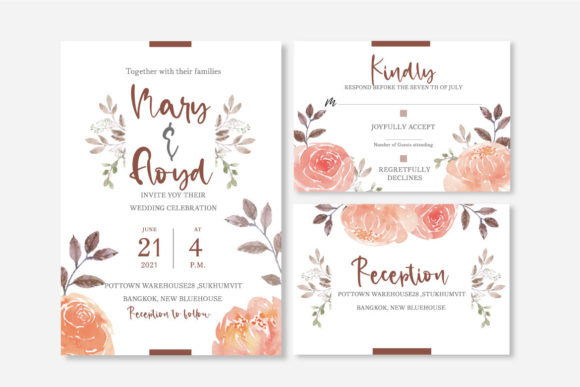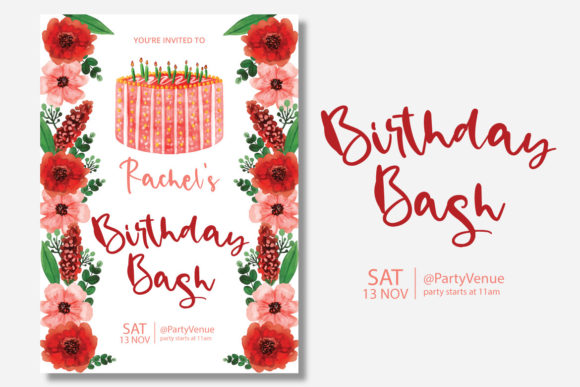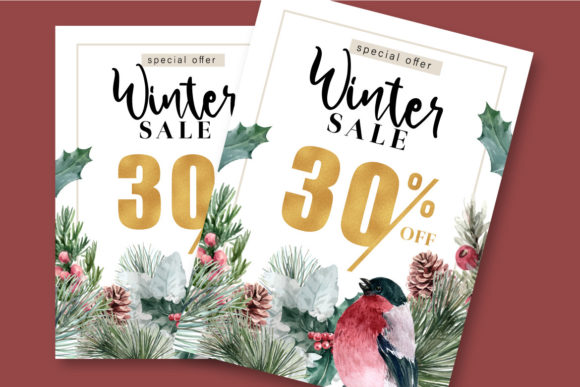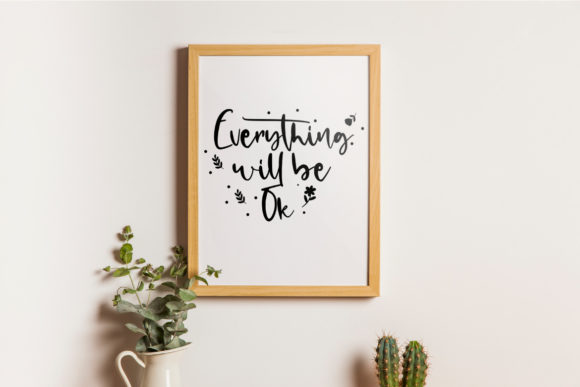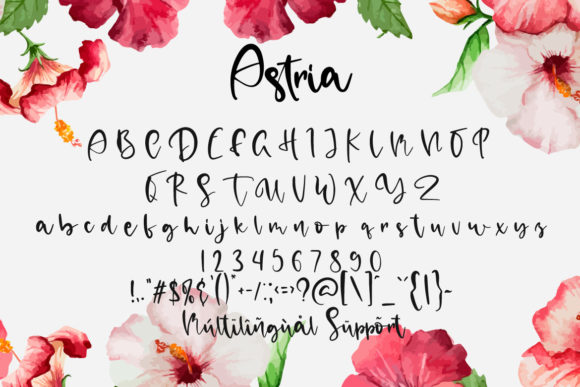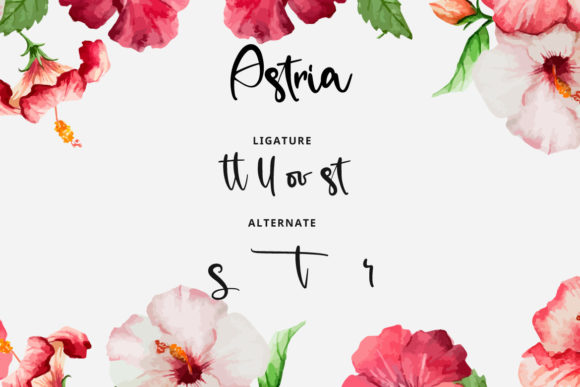
Astria Font: Elevate Your Designs with Elegance and Sophistication
In the world of typography, fonts play a crucial role in conveying the tone and personality of a brand or design. For designers and crafters seeking a beautiful and fashionable script font, Astria is an excellent choice. This stunning paint-brushed script font boasts a classy, elegant, and modern look, making it perfect for a wide range of applications.
What is Astria Font?
Astria is a gorgeous paint-brushed script font designed to add a touch of sophistication and glamour to any design. Its elegant and modern aesthetic makes it an ideal choice for designers and crafters looking to create stunning visual content. With its beautiful, hand-painted strokes, Astria Font is sure to elevate your designs and make them stand out.
Key Features of Astria Font
- Classy and Elegant: Astria Font features a sophisticated and refined design, perfect for creating high-end branding, logos, and invitations.
- Modern Look: The font’s modern aesthetic ensures it stays up-to-date with the latest design trends, making it suitable for a variety of applications.
- Paint-Brushed Script: The font’s paint-brushed script style adds a touch of creativity and whimsy, making it perfect for designers and crafters looking to add some personality to their designs.
- Versatile: Astria Font can be used for a wide range of projects, including logos, branding, invitations, stationery, wedding designs, social media posts, and more.
Use Cases for Astria Font
Astria Font is an incredibly versatile font that can be used in various design projects. Here are some use cases to get you started:
- Logos and Branding: Create a stunning logo or brand identity with Astria Font, perfect for high-end businesses, fashion brands, or luxury products.
- Invitations and Stationery: Add a touch of elegance to your invitations, greeting cards, or stationery with Astria Font.
- Wedding Designs: Make your wedding designs, such as invitations, programs, or decorations, truly special with Astria Font.
- Social Media Posts: Elevate your social media posts with Astria Font, perfect for fashion, beauty, or lifestyle brands.
Why Choose Astria Font?
With so many fonts available, why choose Astria Font? Here are a few reasons why designers and crafters love Astria:
- Unique and Eye-Catching: Astria Font’s paint-brushed script style makes it stand out from other fonts, ensuring your designs grab attention.
- Elegant and Sophisticated: The font’s elegant and sophisticated design makes it perfect for high-end designs, luxury brands, or special occasions.
- Easy to Read: Despite its elegant design, Astria Font remains easy to read, making it suitable for body text or headlines.
Tips for Using Astria Font
To get the most out of Astria Font, here are some tips to keep in mind:
- Pair with Neutral Backgrounds: Astria Font looks stunning against neutral backgrounds, allowing the font to take center stage.
- Experiment with Colors: Try pairing Astria Font with different colors to create unique and eye-catching designs.
- Use for Headlines and Titles: Astria Font is perfect for headlines and titles, adding a touch of elegance and sophistication to your designs.
In conclusion, Astria Font is a beautiful and fashionable paint-brushed script font that can elevate your designs and add a touch of elegance and sophistication. With its versatile design, Astria Font is perfect for a wide range of applications, from logos and branding to invitations and social media posts. Whether you’re a designer or crafter, Astria Font is an excellent choice for anyone looking to create stunning visual content.
| Author | Fallengraphic |